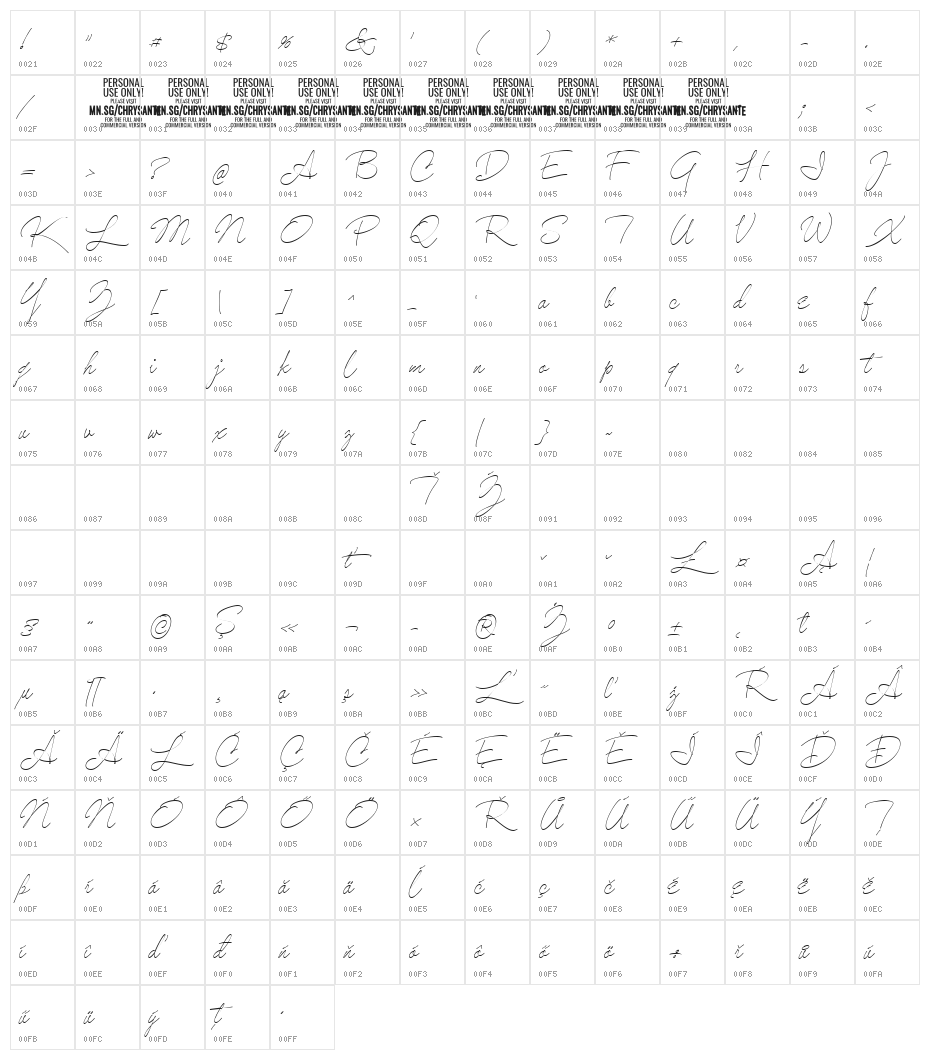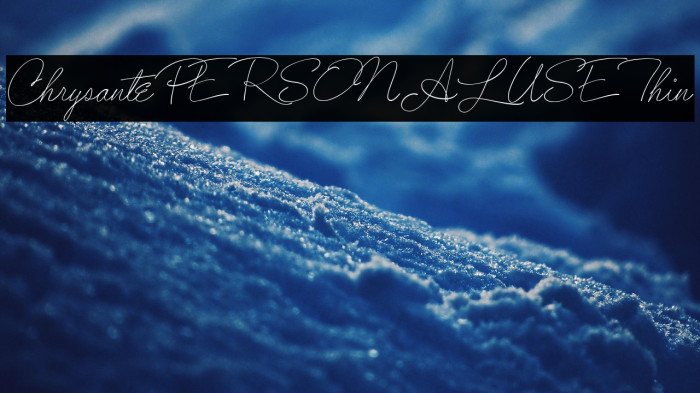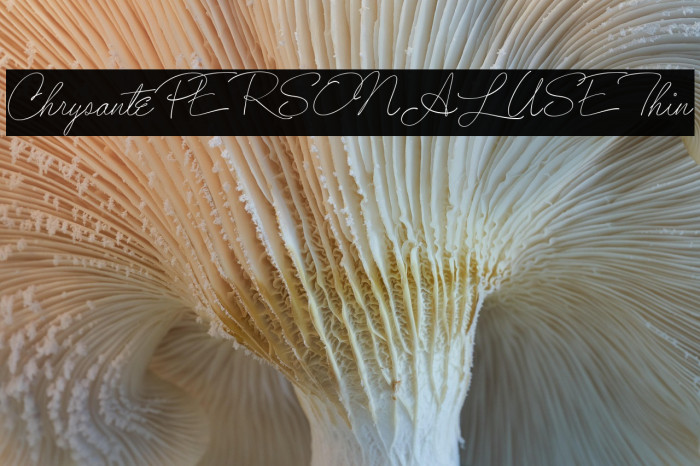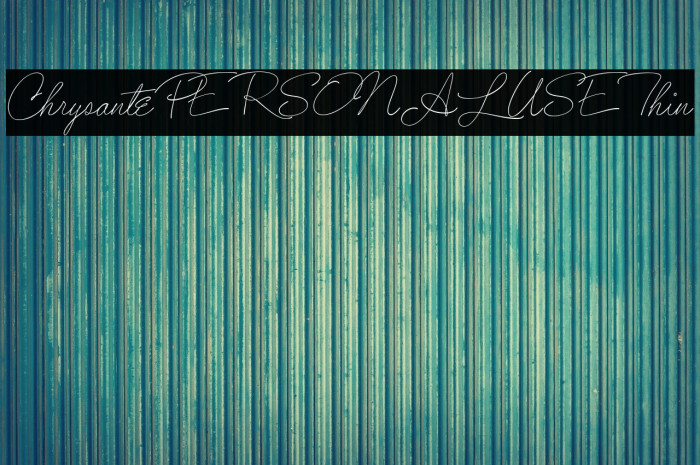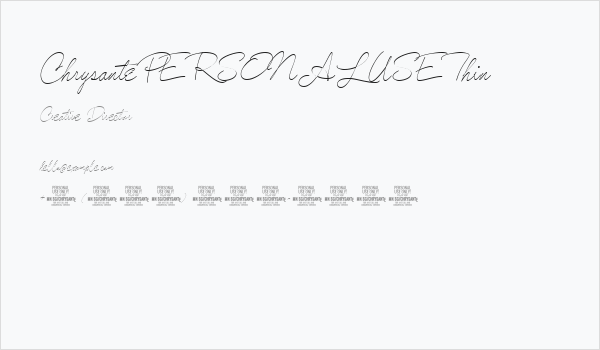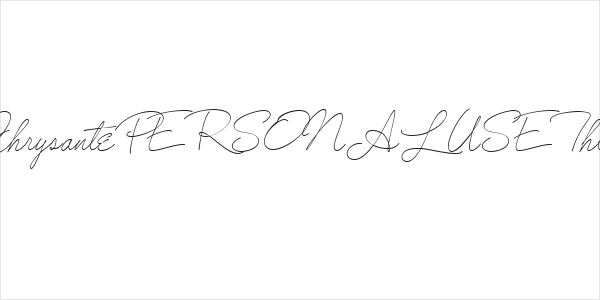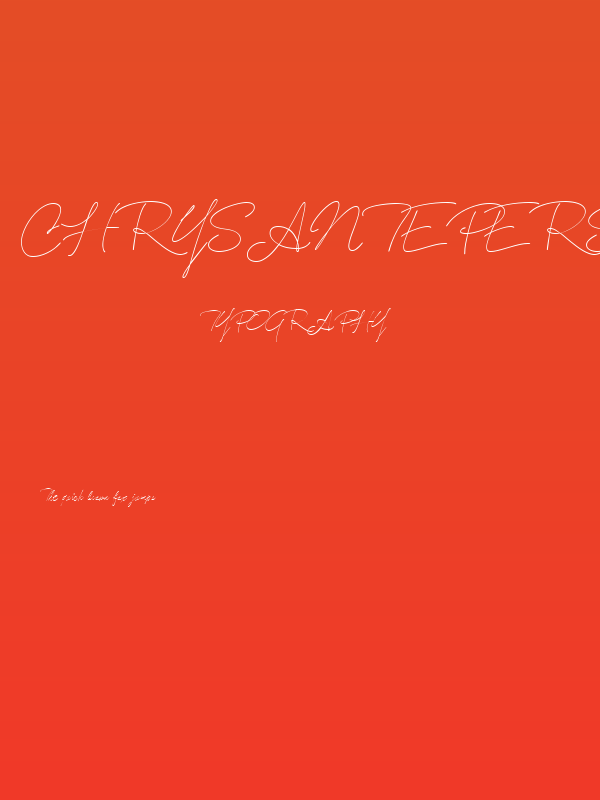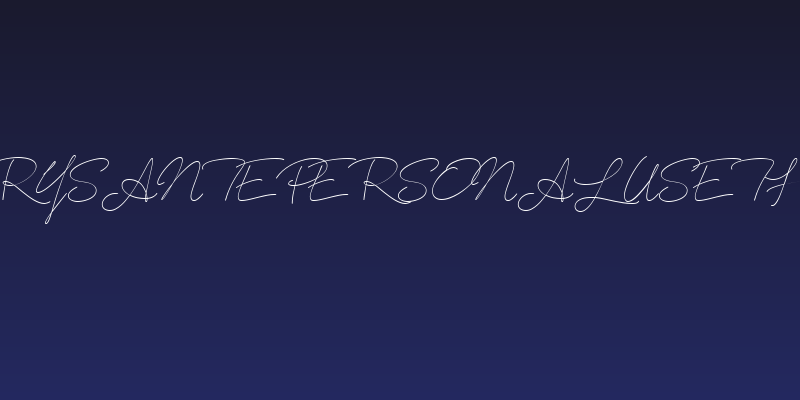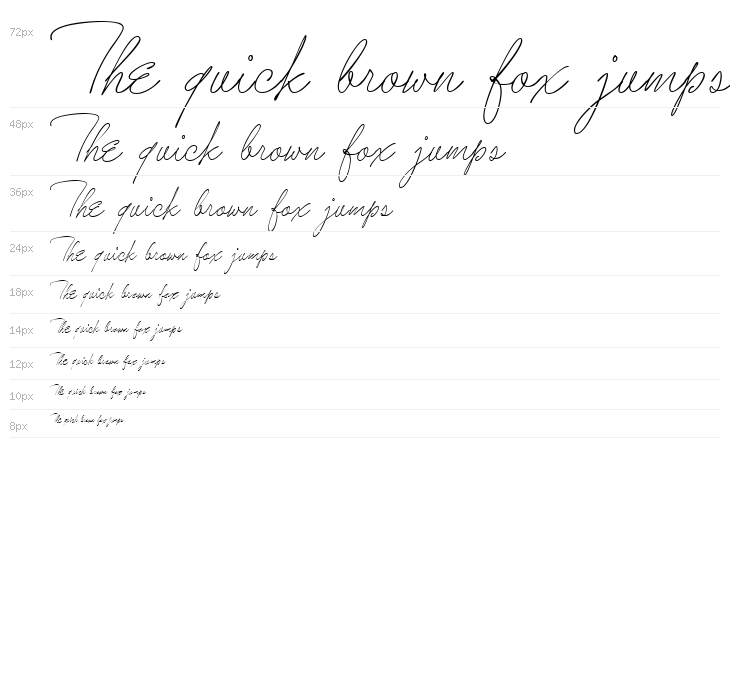
ChrysantePERSONALUSEThin Font
ChrysantePERSONALUSEThin Description
This font features an elegant, flowing script style that mimics the fluidity of natural handwriting. Each letter is intricately designed with smooth curves and delicate strokes, creating a sense of sophistication and grace. The uppercase letters are slightly larger and more ornate, while the lowercase letters maintain a consistent and harmonious flow. The numerals and special characters are crafted with the same attention to detail, ensuring a cohesive appearance across all text. This font is ideal for projects that require a personal touch, such as invitations, greeting cards, or branding materials.
| Overall Style | Elegant, Handwritten |
| Use Case | Logos, Invitations, Personal branding |
| Proposed Projects | Ideal for wedding invitations, personal branding, greeting cards, and elegant stationery. |